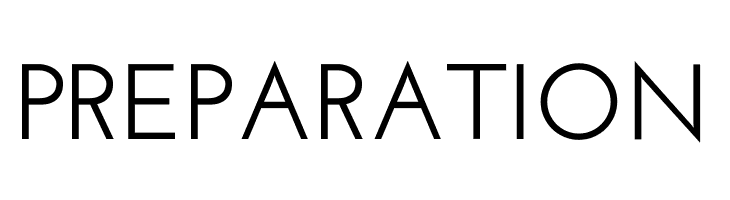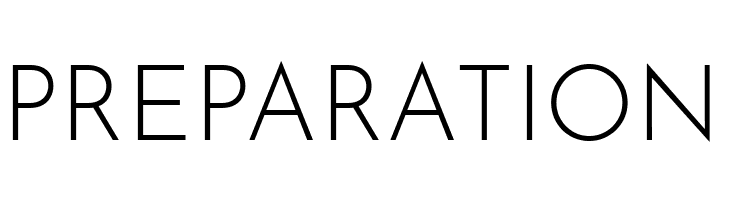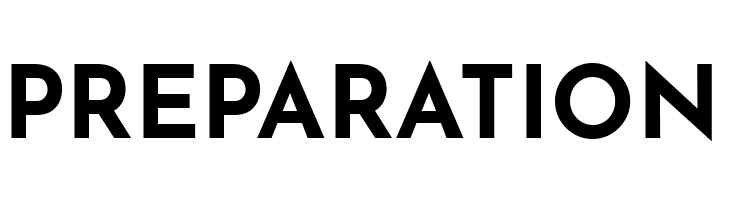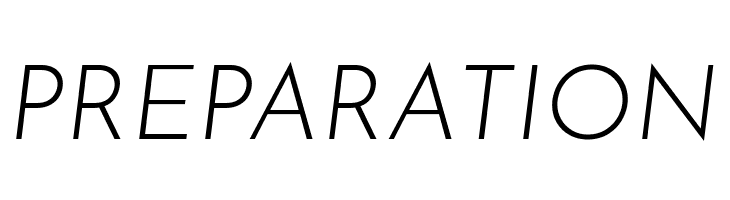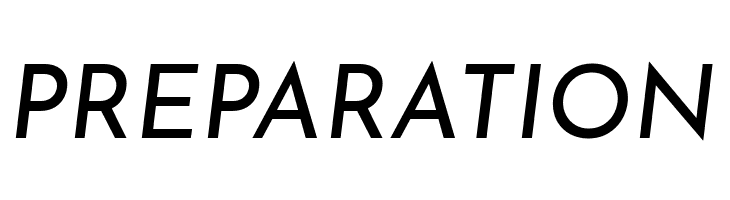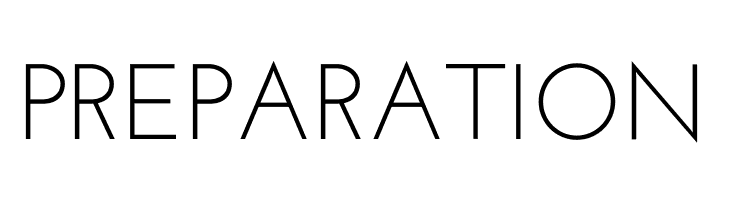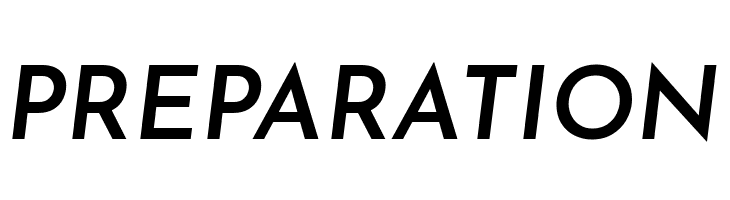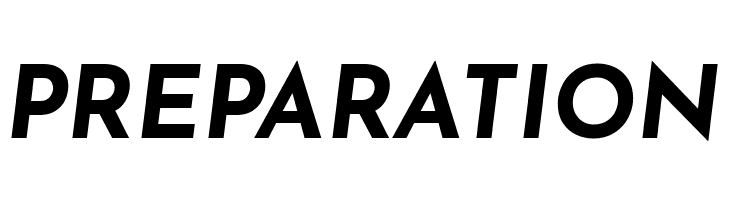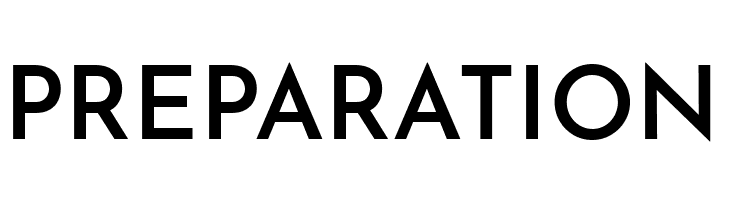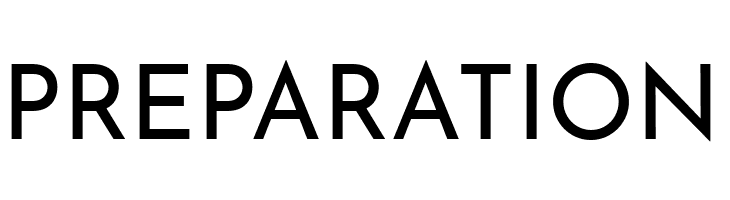
A clean, geometric typeface with a modern and elegant design.
A modern, geometric sans-serif typeface with bold, clean lines.
A modern, bold, and italic sans-serif font with a sleek and dynamic style.
A modern, italic sans-serif font with a geometric touch and elegant style.
A light, geometric sans-serif font with a clean and elegant design.
A sleek, modern, and elegant light italic font with balanced character spacing.
A modern, geometric sans-serif font with a touch of vintage elegance.
A geometric sans-serif font with a clean, modern aesthetic.
A modern, geometric sans-serif typeface with clean lines and balanced proportions.
A modern, semi-bold italic font with clean lines and elegant slant.